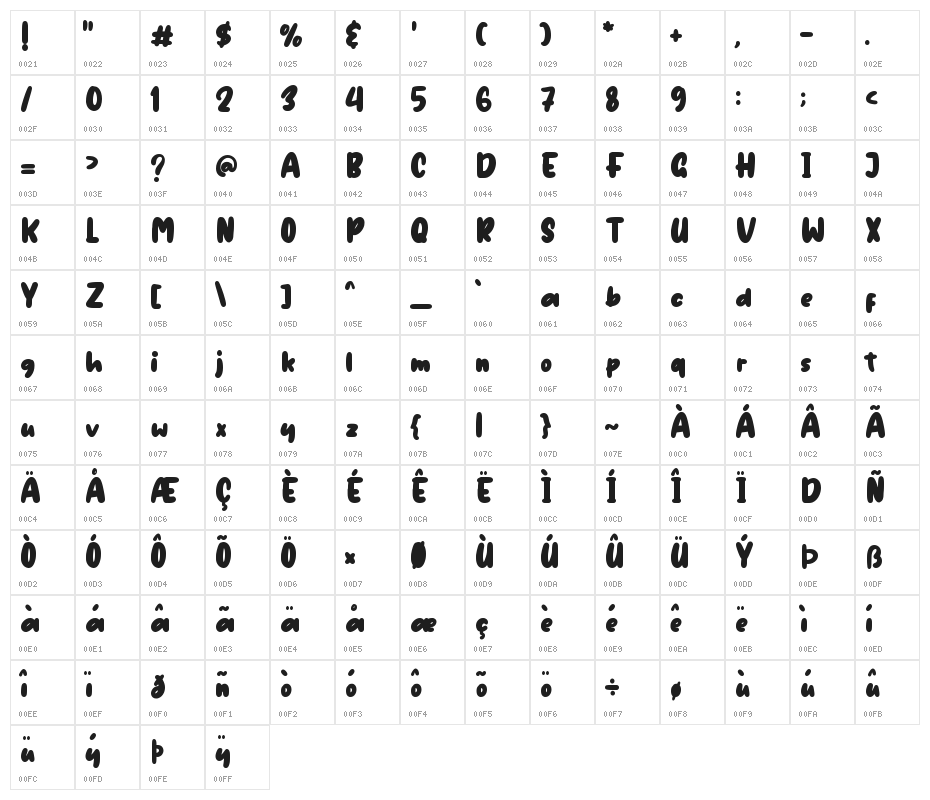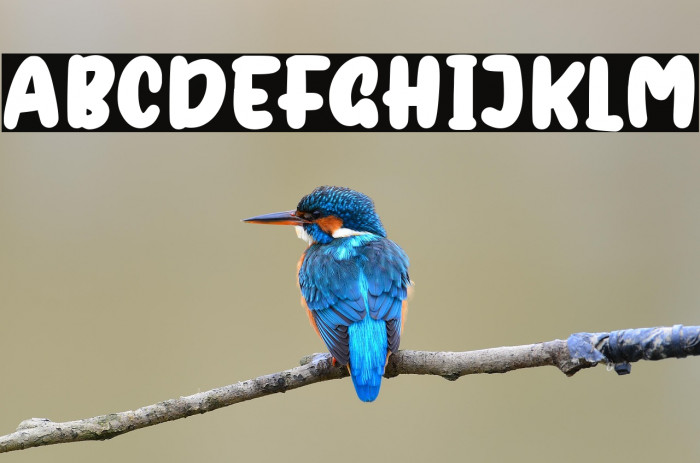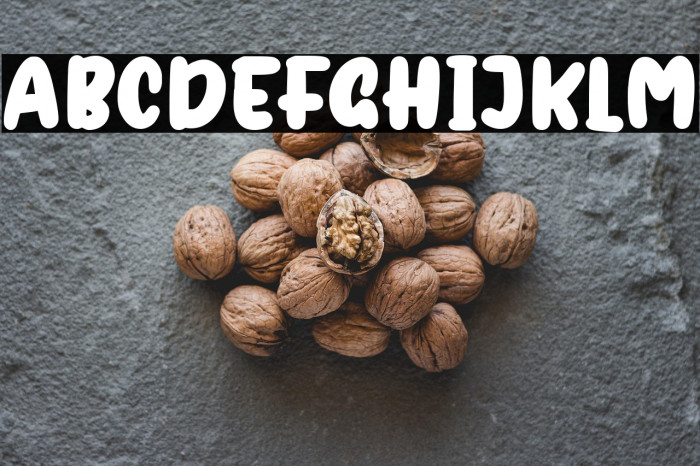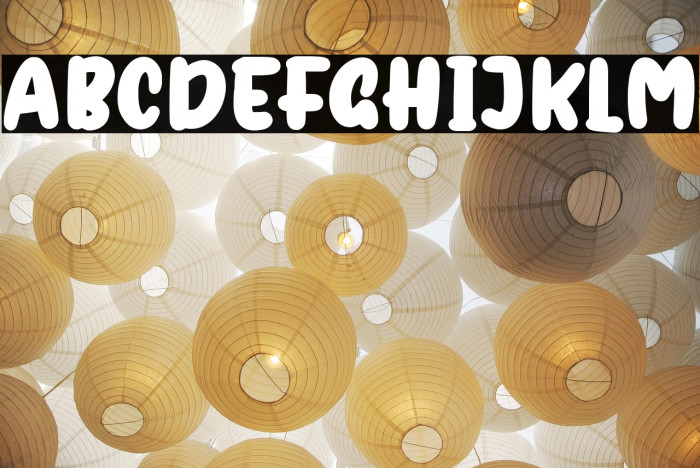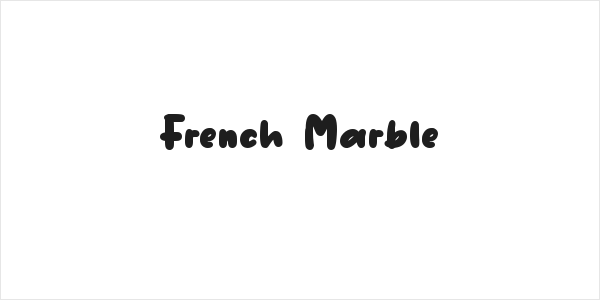
French Marble Font
French Marble Description
A bold, playful handwritten font with rounded edges and a casual style.
| Overall Style | Playful, Casual |
| Proposed Projects | Greeting cards, playful branding, children's books. |